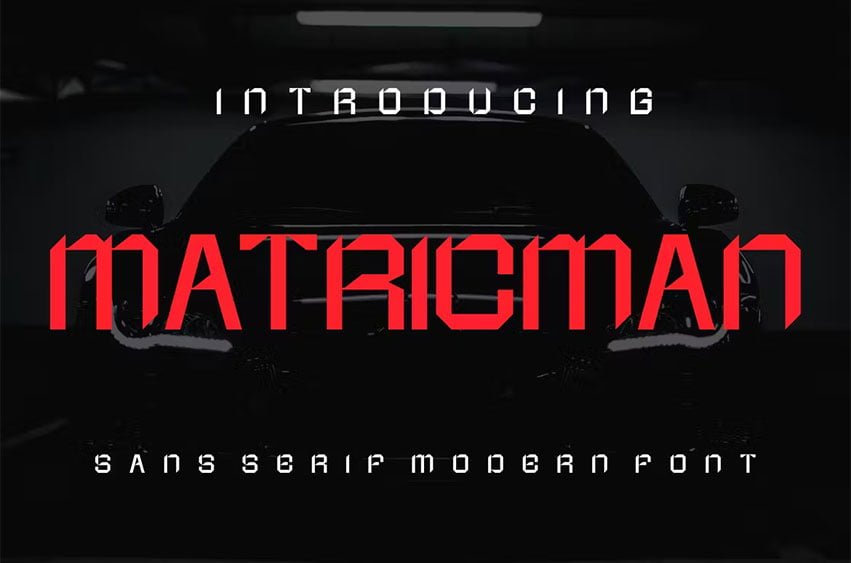
Matricman Font
Matricman Font Modern Sans Serif. MATRICMAN is a modern and simple font, best used as a display for headings, logos, branding, magazines, product packaging and invitations. MATRICMAN come with clean lines and smooth curves give any project an extra touch of class.
Matricman Font Preview